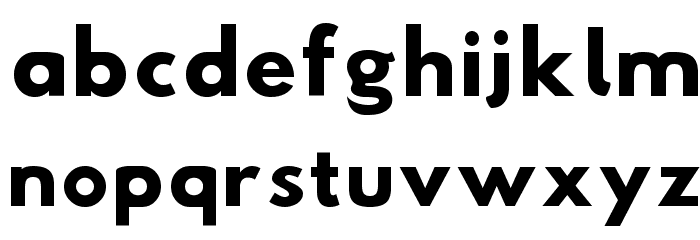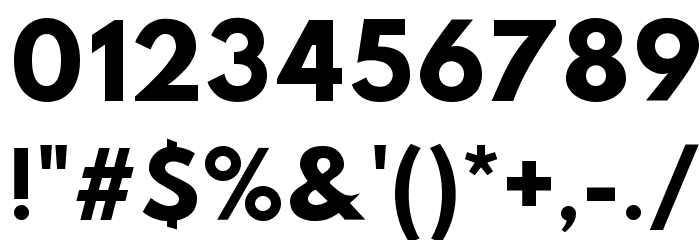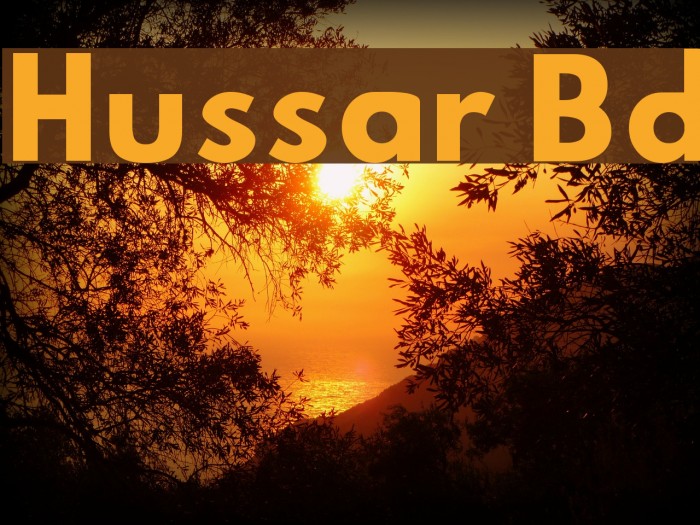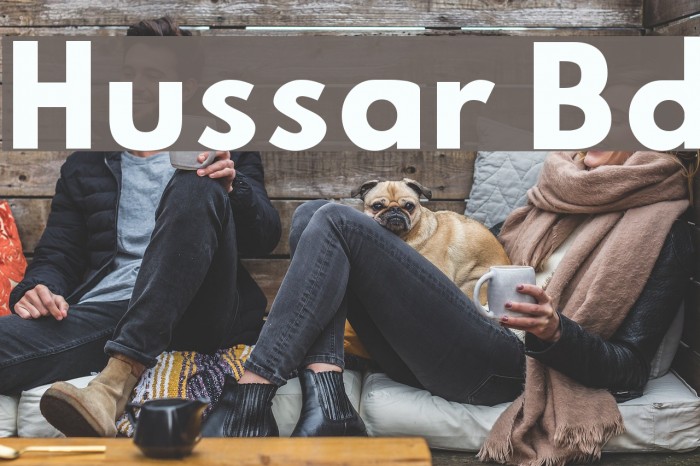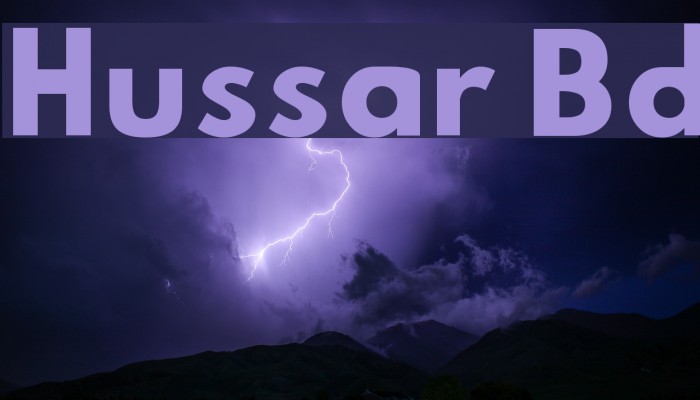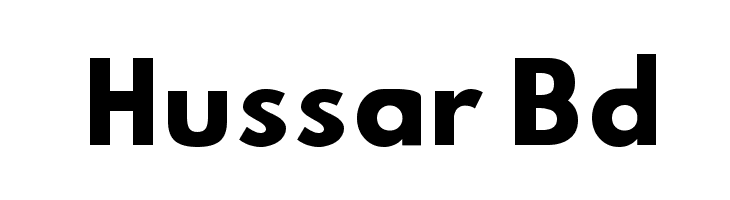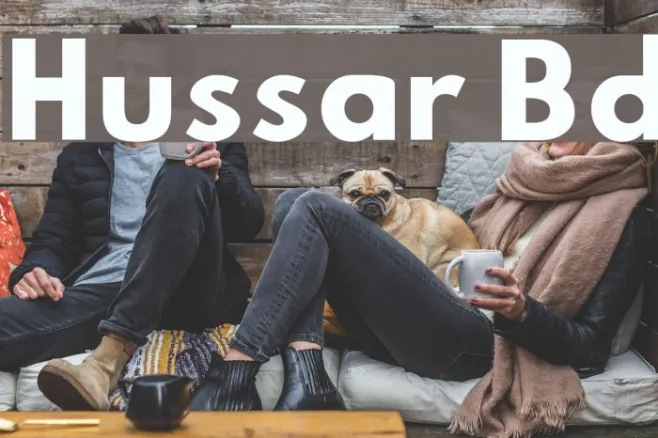
Hussar Bd Font
This font features bold, geometric letterforms with a strong presence. The uppercase letters are uniform and blocky, while the lowercase letters maintain a consistent weight and style, offering a modern and clean look. The numerals are equally bold, ensuring readability and impact. Special characters are designed to match the overall aesthetic, providing a cohesive appearance across all glyphs. The font's simplicity and strength make it versatile for various design applications.
A bold, geometric font with a modern and clean aesthetic.
- Proposed Projects: Ideal for branding, headlines, posters, and any design requiring a strong visual impact.